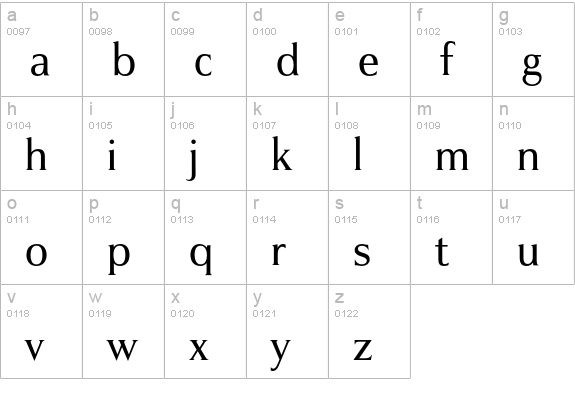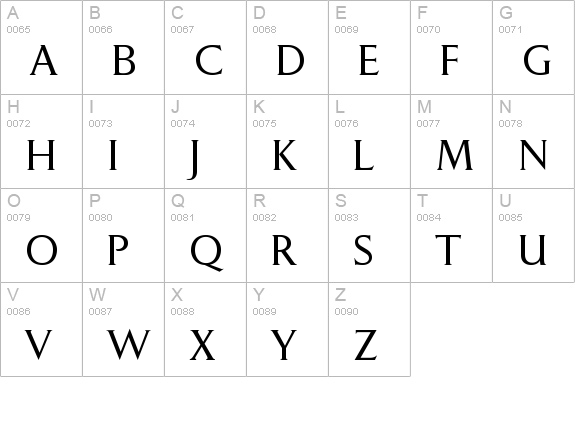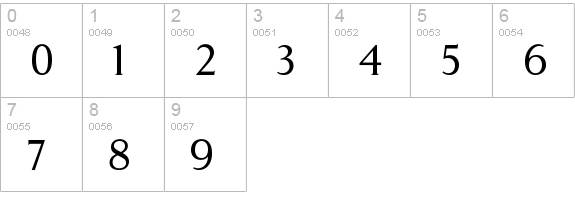
Pompei Std Light is a refined, elegant variant in the Pompei typeface family \xE2\x80\x94 well suited to elegant body text, refined sub-headings, and luxury branding.
Pompei Std Light font is a stunning and elegant typeface that exudes sophistication and modernity. With its sleek lines and graceful curves, this versatile font is perfect for a wide range of design projects, from branding to editorial layouts. The Pompei Std Light font offers a sense of refinement and style, making it an ideal choice for those seeking a clean and contemporary look. What's even better is that Pompei Std Light font is available for free download at FontsMarket.com! This means you can easily access this beautiful font and enhance your creative projects without any cost. So why wait? Elevate your designs with the Pompei Std Light font today and make a lasting impression with its timeless appeal.